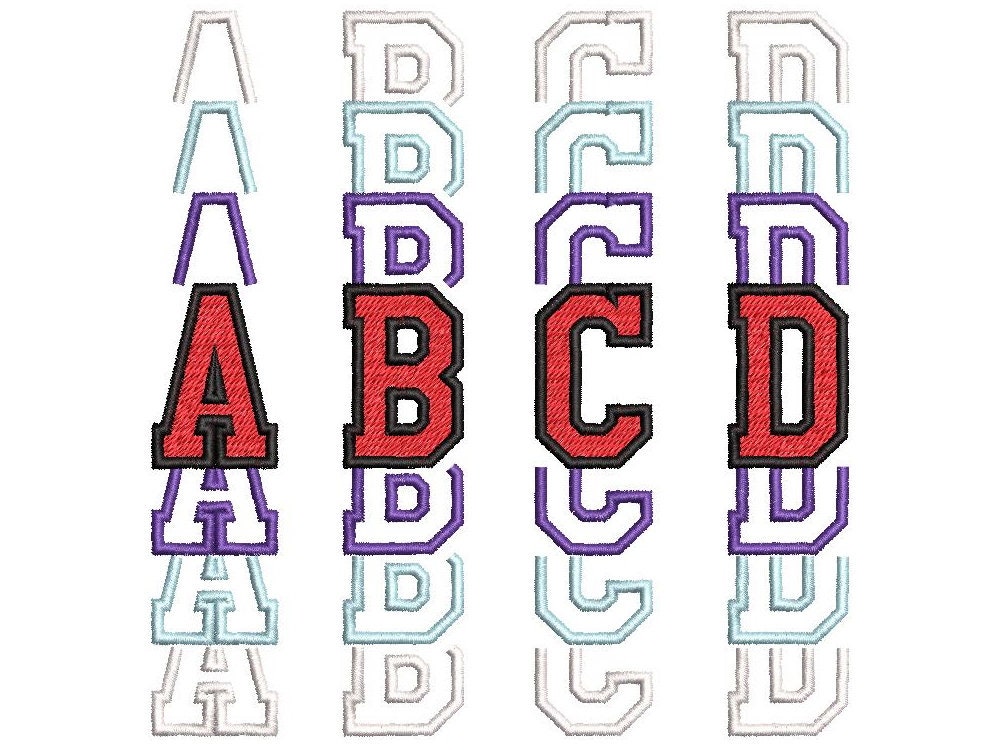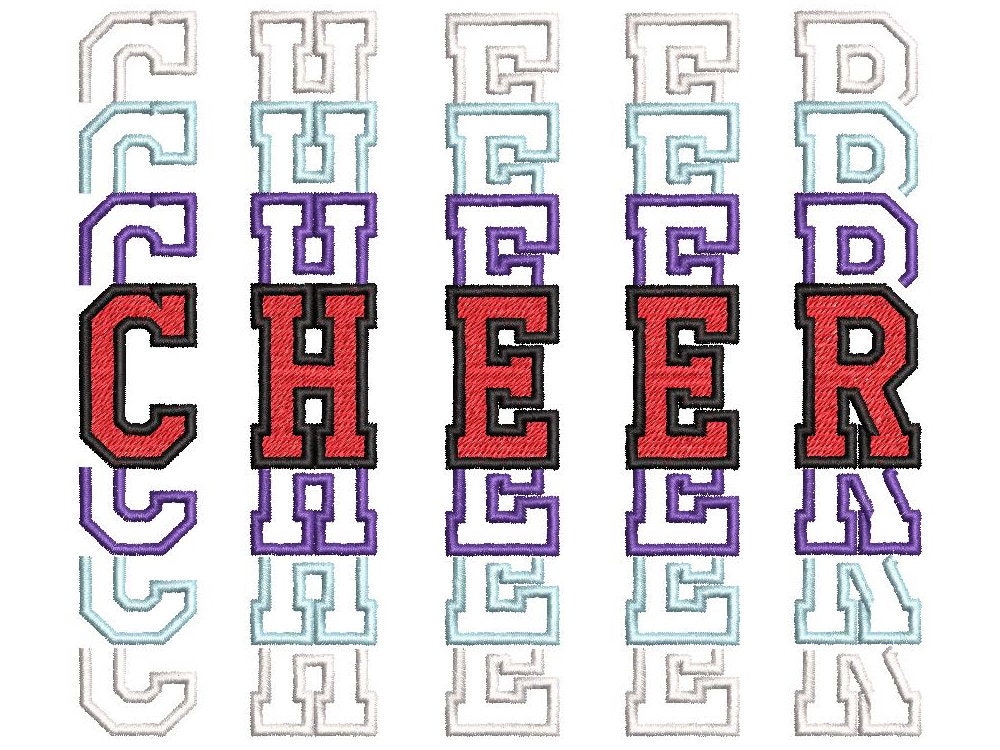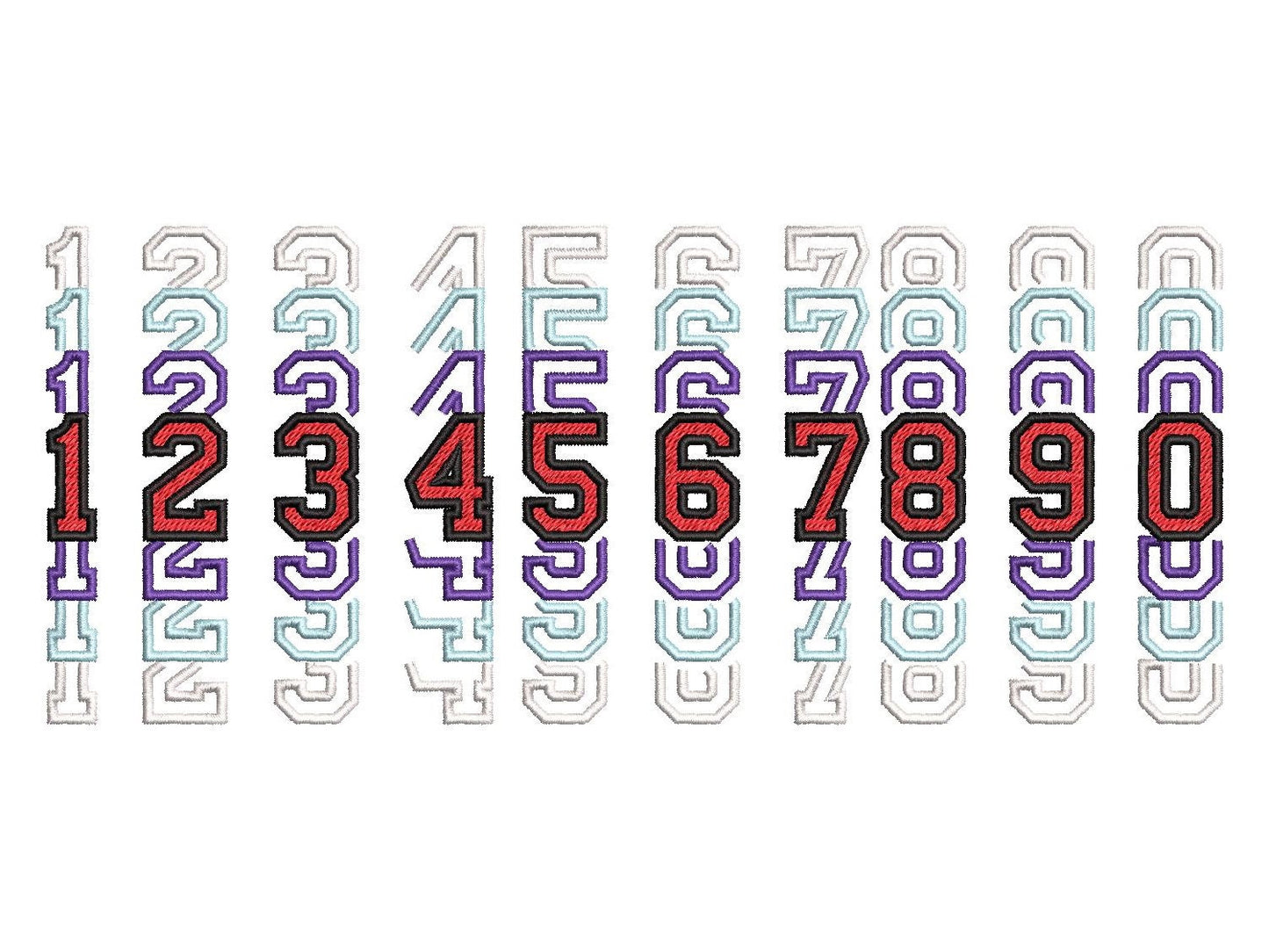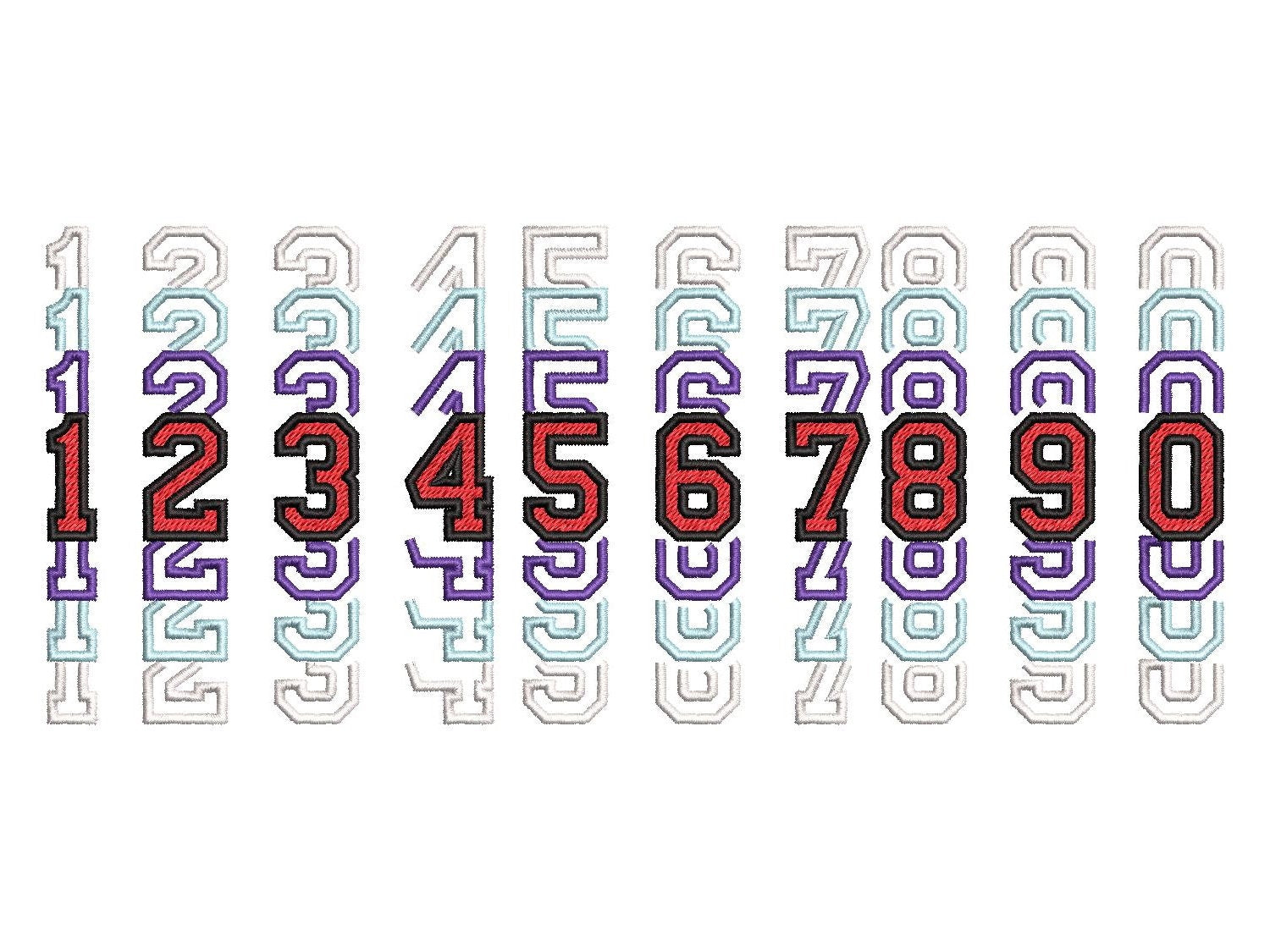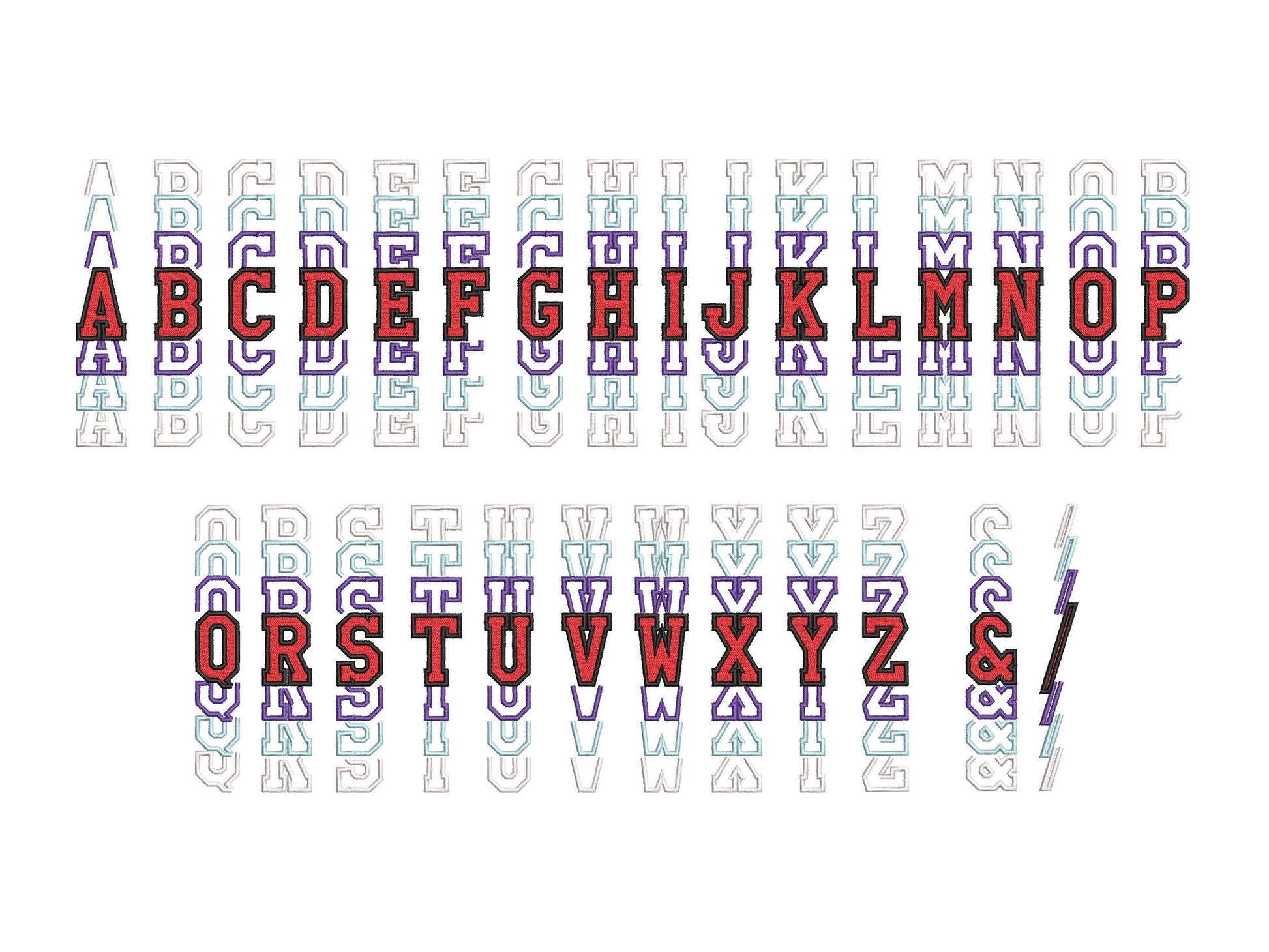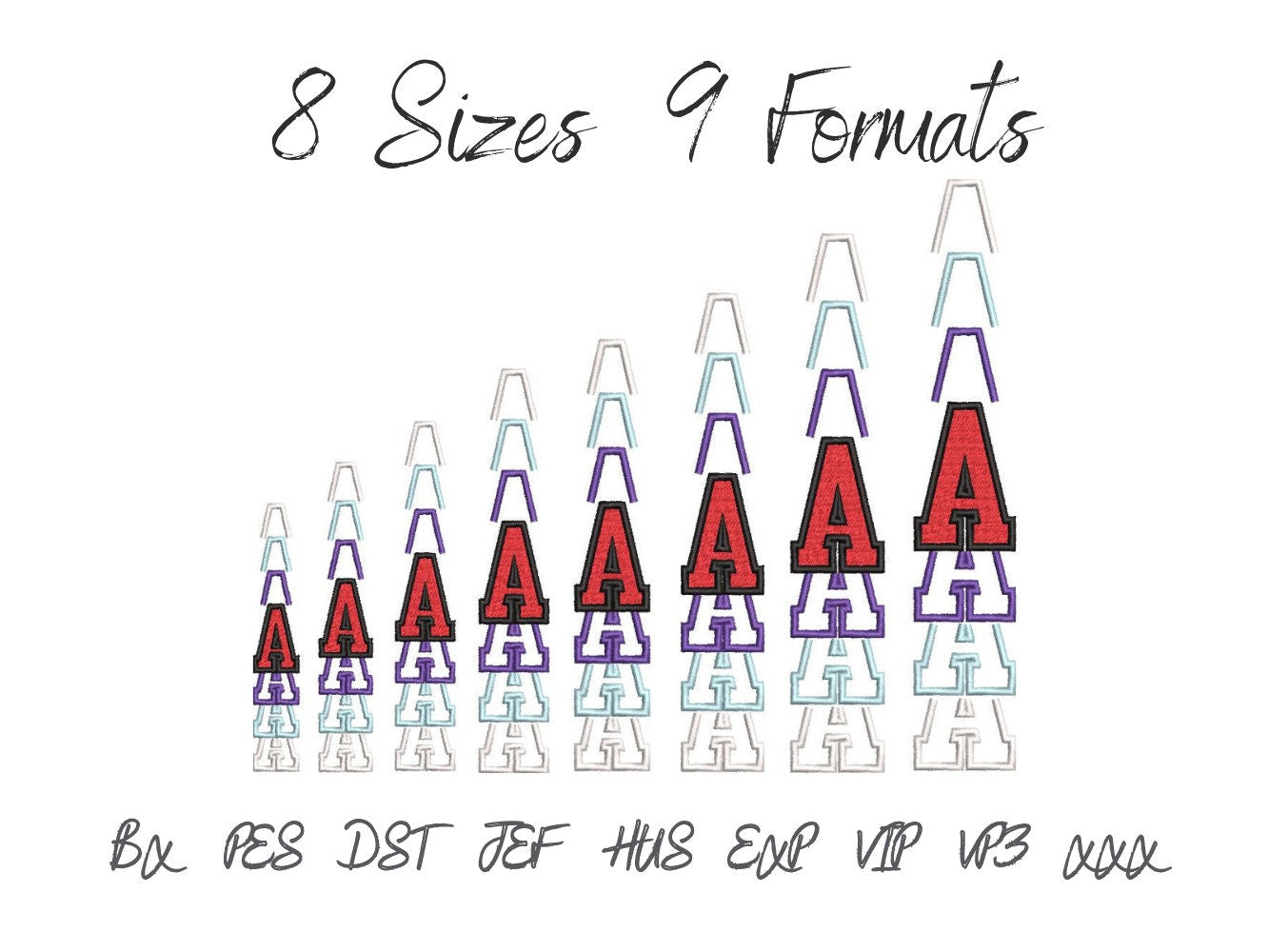
Stacked Athletic Sport Font
Stacked Font Athletic Sport, fill stitch and outline alphabet letters, boy trend Font fabulous machine embroidery designs many sizes BX incl
Entire alphabet A-Z, numbers 0-9.